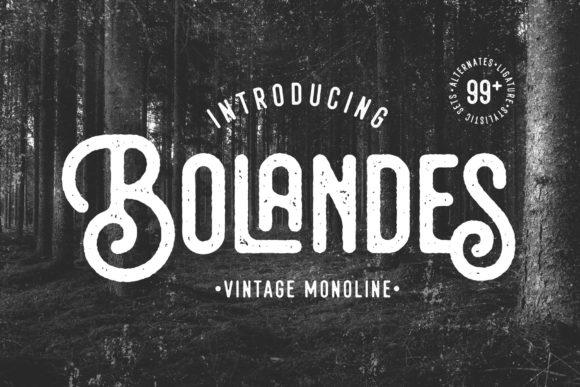
Dive into the realm of visual enchantment with Bolandes, the display font that exudes vintage charm and contemporary elegance. Its captivating curves and striking details transport you to an era of timeless artistry, making it the perfect choice for designers seeking to create captivating logos, apparel, labels, posters, and more. Immerse yourself in a world of creative possibilities with Bolandes.
Beyond its visual appeal, Bolandes is a font of versatility, effortlessly adapting to a myriad of design projects. Whether you're crafting eye-catching signage that demands attention or designing packaging that tells a story, Bolandes rises to the occasion, leaving an indelible mark on your audience. Its ability to effortlessly blend vintage aesthetics with modern sensibilities makes it a font that transcends time, ensuring your designs remain relevant and impactful for years to come.
With Bolandes, you're not just downloading a font; you're embarking on a creative journey, unlocking a treasure trove of design possibilities. Let your imagination run wild as you explore endless combinations, crafting designs that resonate with your audience and leave a lasting impression. Unleash your creativity and experience the transformative power of Bolandes, where vintage elegance meets modern sophistication.
But wait, there's more! Bolandes is not just a collection of letters; it's an expression of your unique style and personality. Whether you're a seasoned designer or just starting your creative journey, Bolandes empowers you to make a bold statement with your designs. Its versatility allows you to seamlessly blend different elements, creating cohesive and visually stunning compositions that reflect your individuality.
So, why settle for ordinary fonts when you can embrace the extraordinary? Step into the world of Bolandes and unlock a new realm of creative possibilities. Let your designs shine with vintage charm and contemporary elegance, captivating your audience and leaving them in awe. Embrace the power of Bolandes and embark on a creative adventure that knows no bounds.